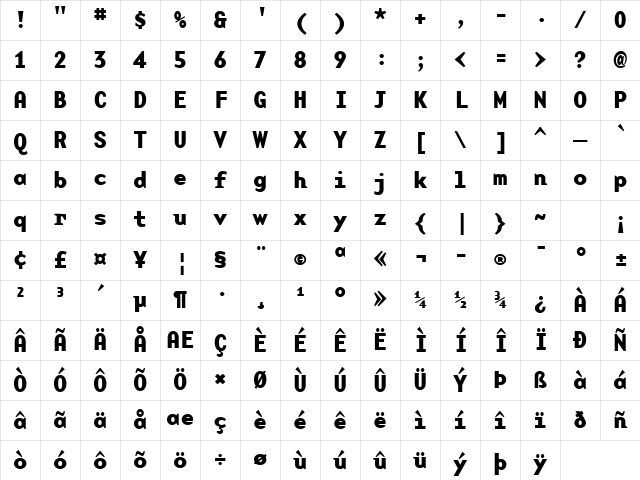
BaseMonoWideBold Bold Free Font
BaseMonoWideBold Bold
Design Context for BaseMonoWideBold
BaseMonoWideBold uses fixed-width spacing throughout, giving it the structured, systematic character associated with coding environments and technical documentation. Its bold stroke weight gives it real presence on the page.
Well-suited to data-driven dashboards, coding tutorials, and any design that wants to reference the world of programming.
Font Pairing: Pairs well with a humanist sans-serif for body copy - the contrast between mechanical precision and organic warmth creates a compelling typographic dynamic.
Pro Tip: Use BaseMonoWideBold with slightly increased line-height for extended reading - fixed-width spacing can feel dense in longer passages without extra breathing room.